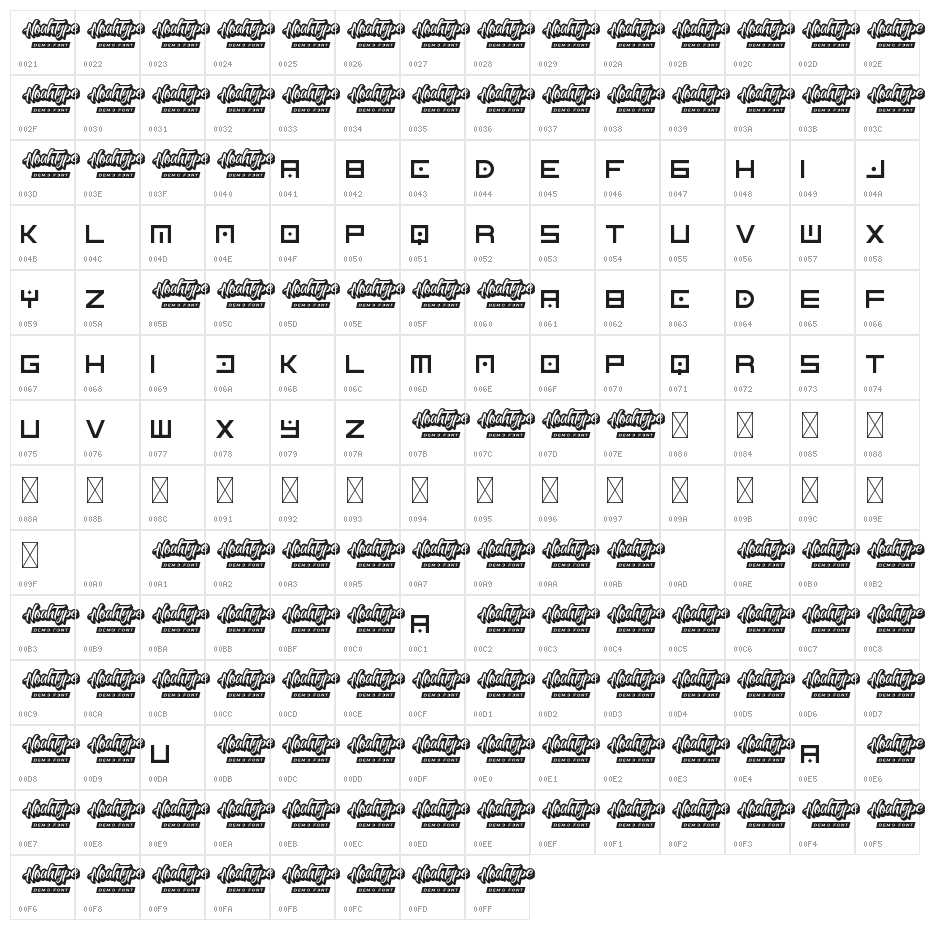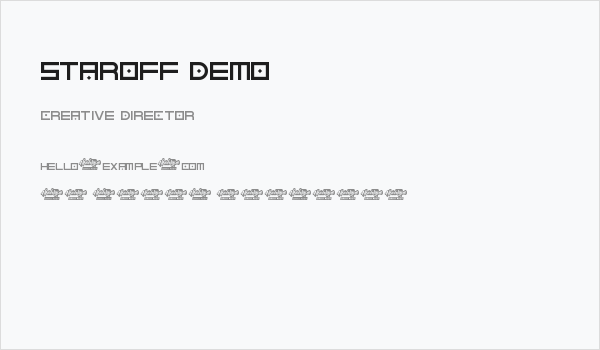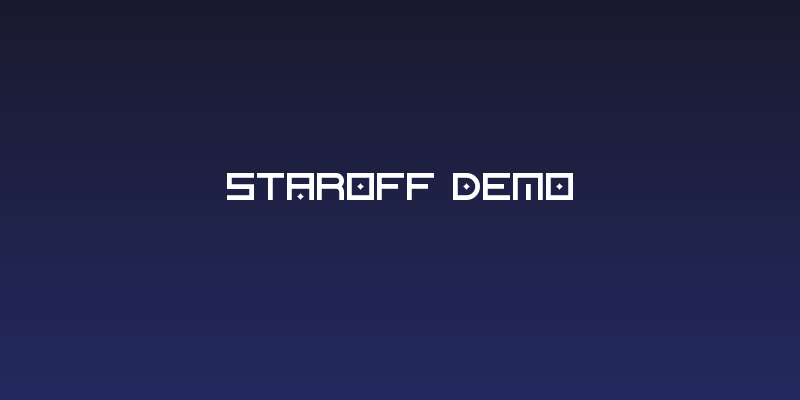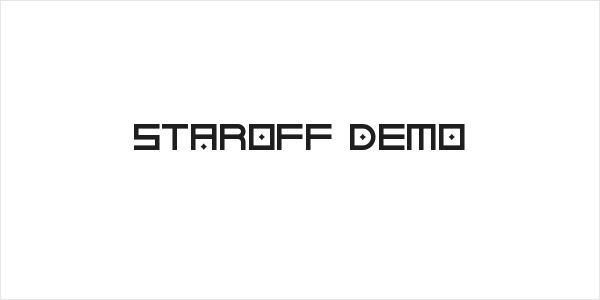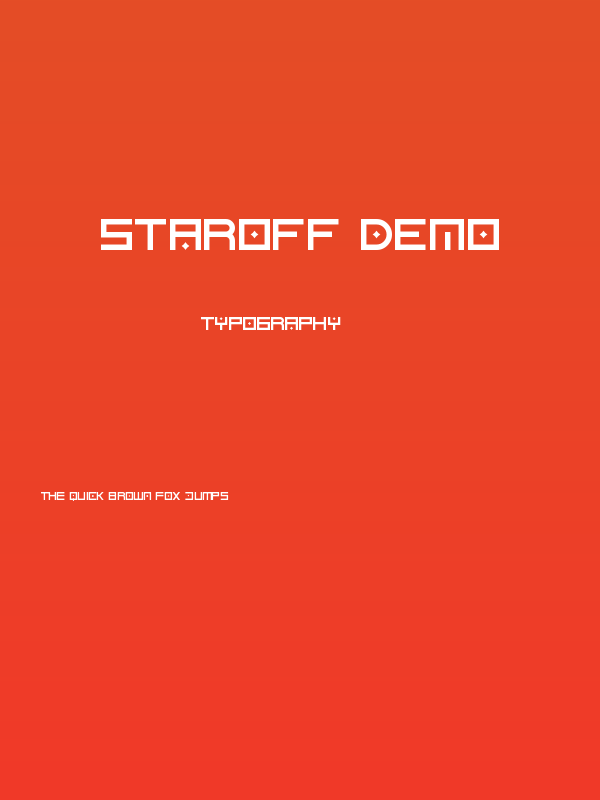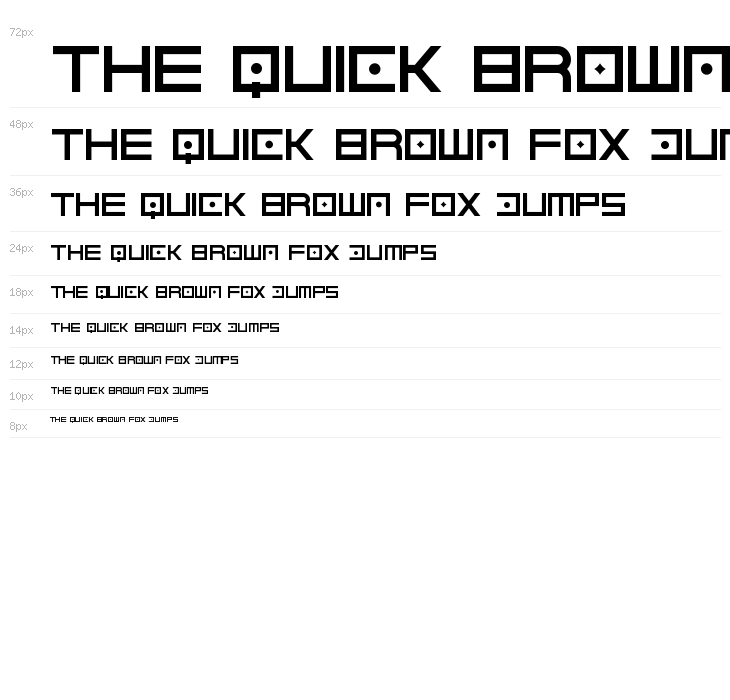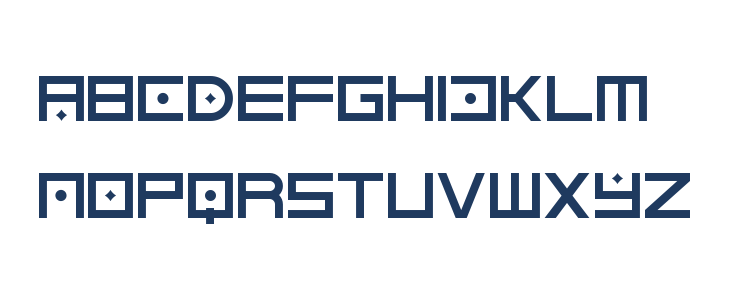
Staroff Demo Font
Staroff Demo Description
This font features a futuristic and geometric design with a distinctively modern aesthetic. The characters are constructed with bold, angular lines and sharp edges, creating a sense of precision and technological advancement. Each letter is uniquely designed with a consistent width, giving the font a monospaced appearance. The use of geometric shapes within the characters, such as circles and triangles, adds a decorative element that enhances its visual appeal. The font's style is both striking and versatile, making it suitable for a variety of creative projects.